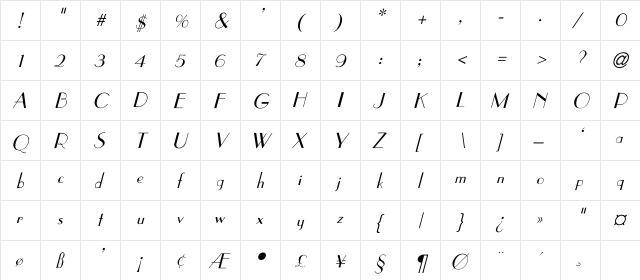
Design Context for Parisian-Thin Italic Typeface
Parisian-Thin Italic takes a measured approach to typography — its balanced proportions and neutral character make it a reliable workhorse for both digital and print work. The dynamic lean of this cut emphasises speed and emphasis in any layout. The delicate stroke weight brings airiness and refinement to layouts.